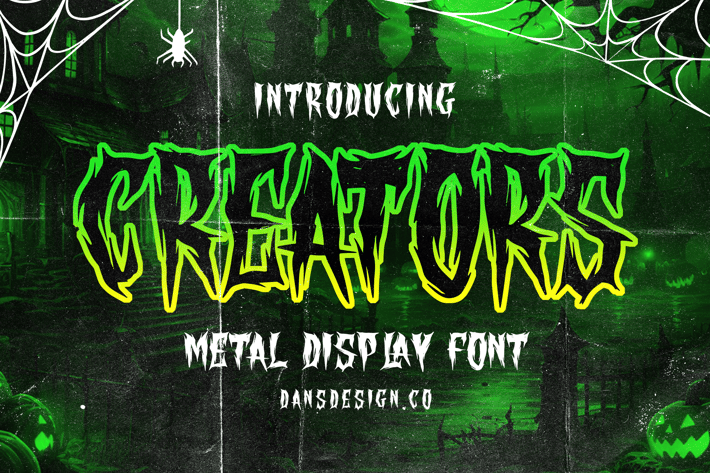
CREATORS Modern Blackletter Metal Horror Font
CREATORS Modern Blackletter Metal Horror Font a distinct, highly detailed, and chic Blackletter font.
It would make a great choice for exquisite retro-urban designs, tattoo business branding, logos, vintage designs, movie, poster, apparel, illustration, and more.